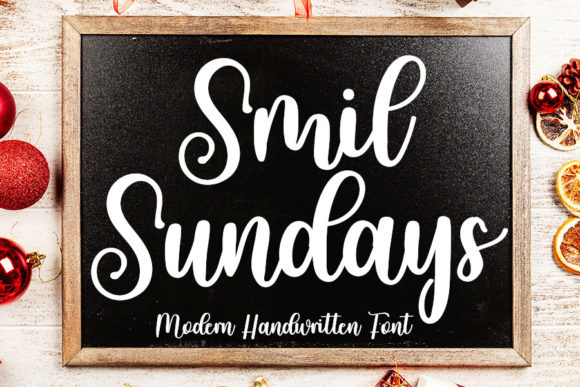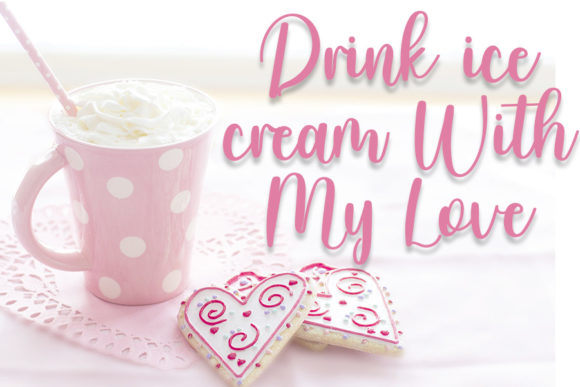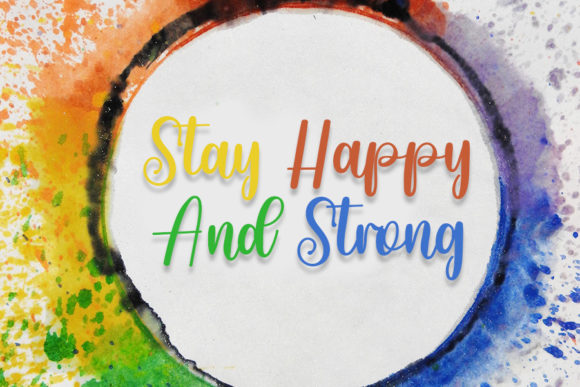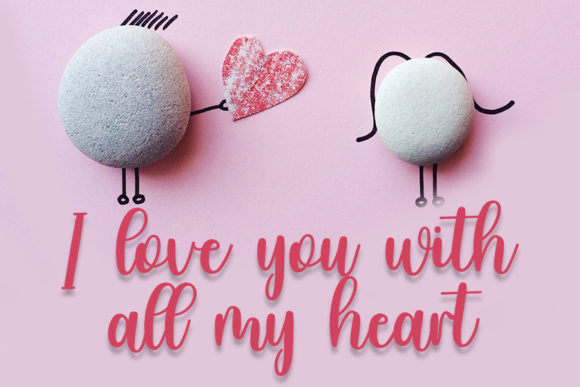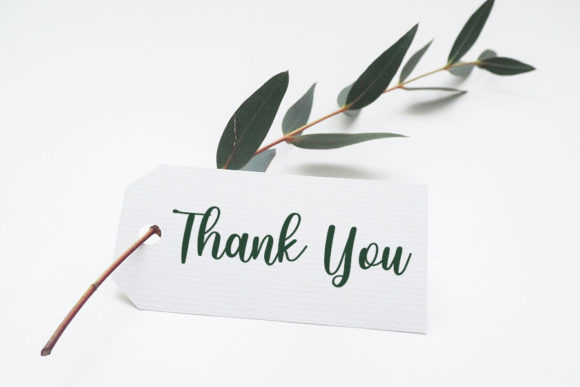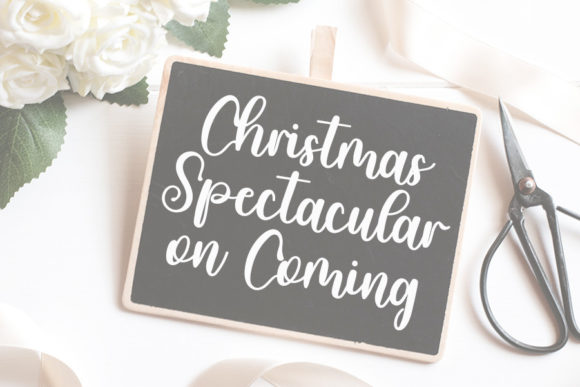
Smile Sundays Font
About Smile Sundays Font
Smile Sundays is a lovely and delicate script handwritten font that exudes elegance and class. This font was particularly crafted for those who need a beautiful and refreshing look to their designs.